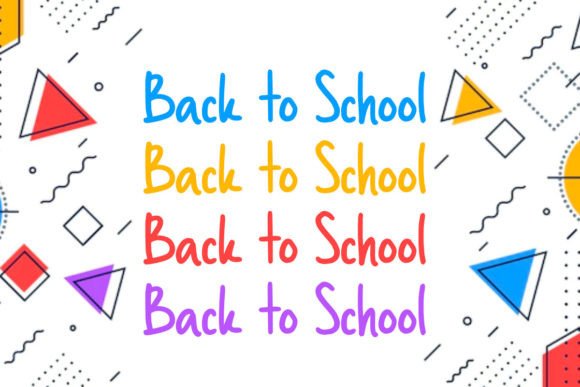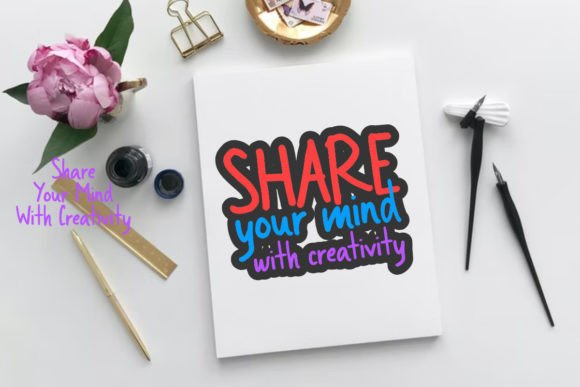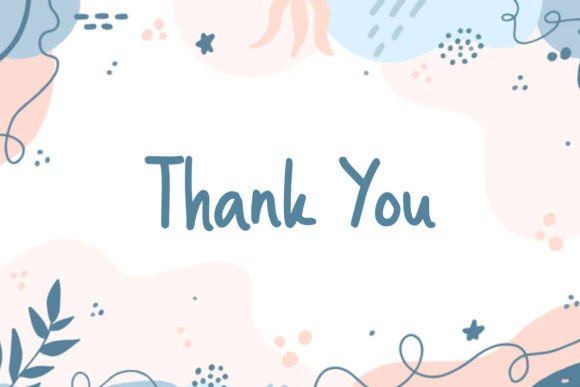
Introduction to Rabitius Font
Rabitius is a sweet and friendly handwritten font.
Rabitius Font offers exceptional quality and versatility, making it a valuable addition to your design toolkit. Whether you’re creating for personal projects or commercial use, Rabitius Font delivers professional results.